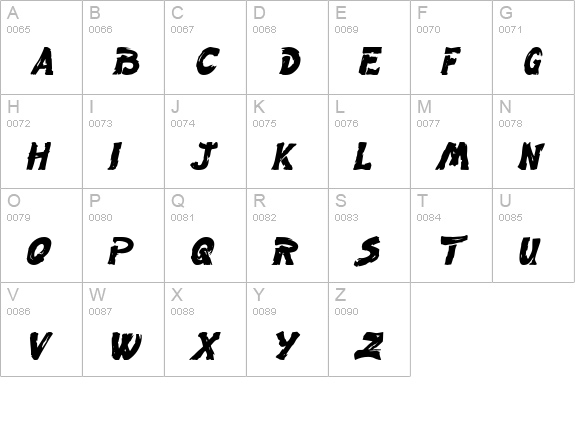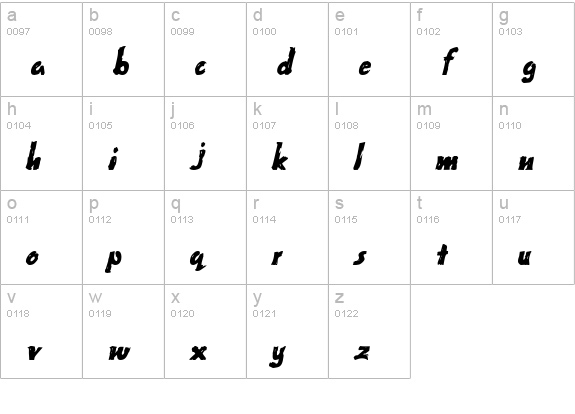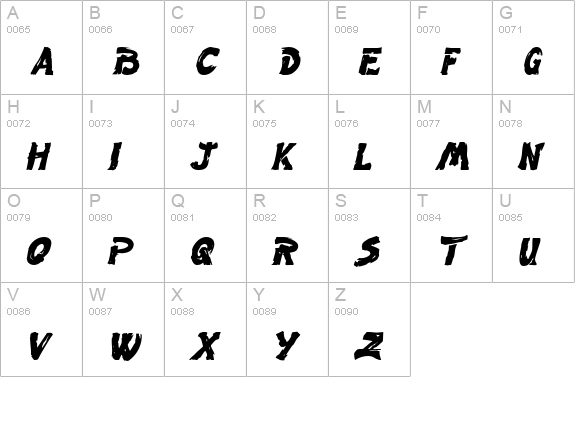
Paint Italic is a distinctive, italic variant in the Paint typeface family \xE2\x80\x94 well suited to design and typography projects.
Introducing Paint Italic font, a stunning brush script typeface that adds an artistic flair to any design. With its elegant and fluid strokes, this font captures the essence of hand-painted lettering, infusing your projects with a touch of creativity and personality. Designed with meticulous attention to detail, Paint Italic font offers a unique blend of elegance and informality, making it perfect for a wide range of applications. Whether you're designing logos, invitations, posters, or social media graphics, this font is sure to make a lasting impression. One of the best features of this font is that it is available for free download at FontsMarket.com. Yes, you read that right! Paint Italic font can be yours without spending a dime, allowing you to enhance your designs without breaking the bank. Just visit FontsMarket.com, search for Paint Italic font, and start unleashing your creativity. Not only does this font offer stunning aesthetics, but it also provides exceptional versatility. With its italic style, it adds a touch of sophistication and dynamism to your texts, making them stand out from the crowd. Whether you're aiming for a bold and expressive look or a subtle and refined vibe, Paint Italic font has got you covered. The seamless curves and organic feel of this font create a sense of movement, as if each letter was gracefully painted onto the canvas. Its slightly irregular strokes give it a handmade charm, allowing you to add a personal touch to your designs. So why wait? Download Paint Italic font now and let your creativity flow. With its free availability at FontsMarket.com, you have no reason not to add this beautiful typeface to your collection. Whether you're a professional designer or a hobbyist, Paint Italic font will surely become your go-to choice for all your design needs.